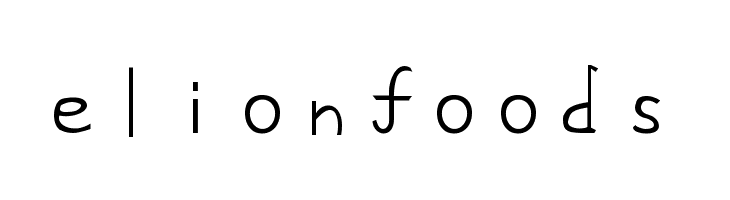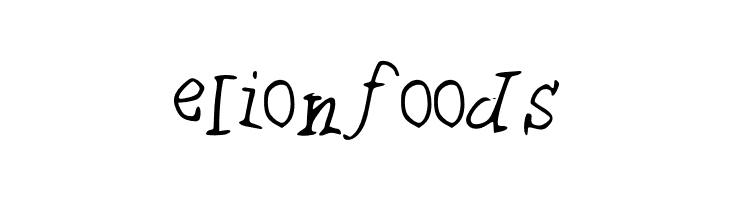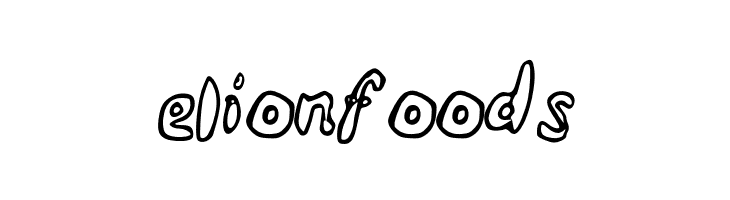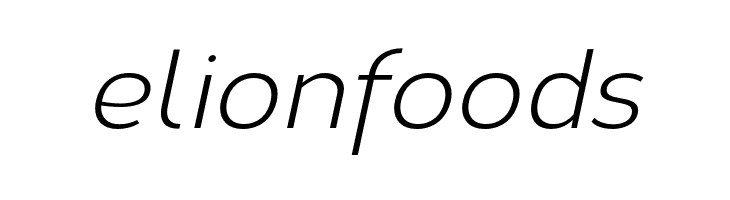
A modern, geometric font with arrow-like accents and clean lines.
A geometric, modern font with clean, angular lines and a technical appearance.
A bold, geometric font with a modern, structured design.
A slender, hand-drawn font with elongated strokes and a whimsical style.
A bold, playful handwritten font with rounded, dynamic characters.
An elegant script font with flowing, cursive letterforms and intricate flourishes.
A whimsical font with playful swirls and curls, perfect for creative designs.
A hand-drawn, pipe-like font with bold, interconnected lines and a playful style.
A playful, hand-drawn font with a pipe-like, artistic design.
A bold, hand-drawn font with a textured, organic appearance.
A bold, vintage-style font with thick, rounded serifs and a handcrafted feel.
A distressed, grunge-style font with bold, textured characters.
A bold, decorative font with a distressed, textured design.
A bold, geometric font with a pixelated, digital appearance.
A modern, geometric sans-serif font with clean lines and smooth curves.
A modern, bold, and italic typeface with a dynamic and energetic style.
A modern, geometric sans-serif font with a clean and structured design.
A sleek, modern geometric sans-serif font with clean lines and uniform stroke width.
A sleek, modern, and thin italic font with a clean and elegant design.
A sleek, thin, and modern font with a geometric and minimalist design.
A bold, modern font with a strong geometric structure and consistent stroke width.
A modern, italicized font with a sleek, dynamic style.
A modern, semi-bold italic font with clean lines and a dynamic style.
A sleek, modern font with clean lines and a geometric structure.
A modern, italic font with a sleek and dynamic design.
A modern, bold font with a geometric and sleek design.
A modern, geometric sans-serif font with consistent stroke width and slight curvature.